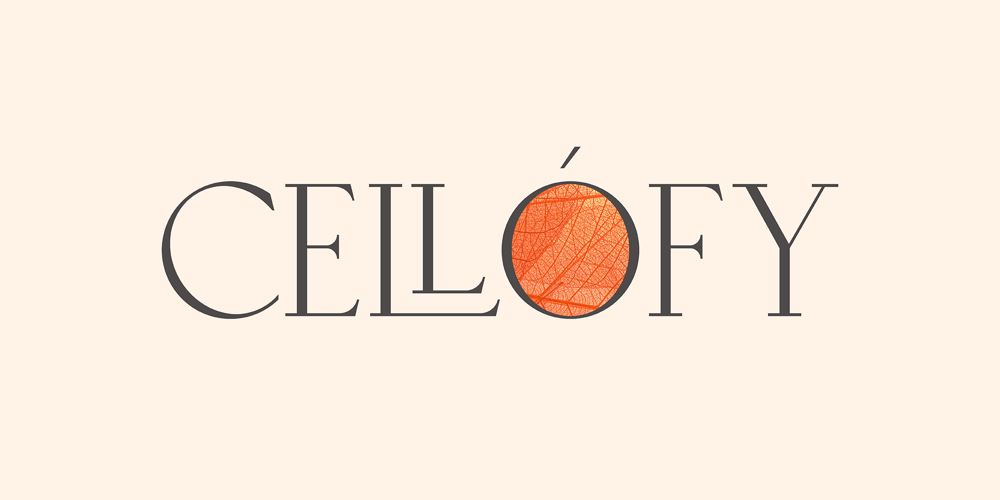
Cellofy Font Family was designed by Darhilen and published by Owl king project. Cellofy contains 75 styles and family package options. CellofyThis serif-type Cellofy font is made with several types of families ranging from regular to expanded. This is to make it easier for designers to get many choices in a font family, aiming to make it easier to explore with many choices. happy exploring various projects, hopefully, Cellofy can collaborate on your design.